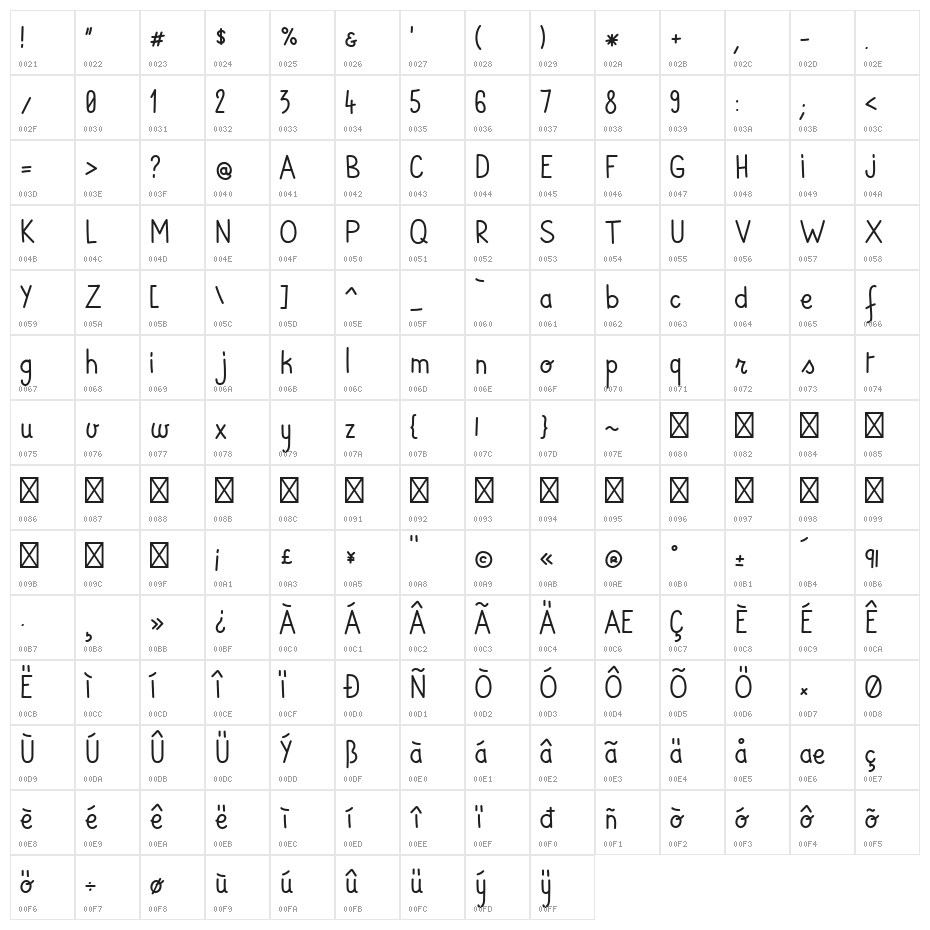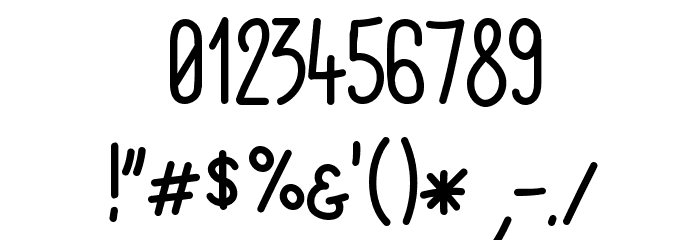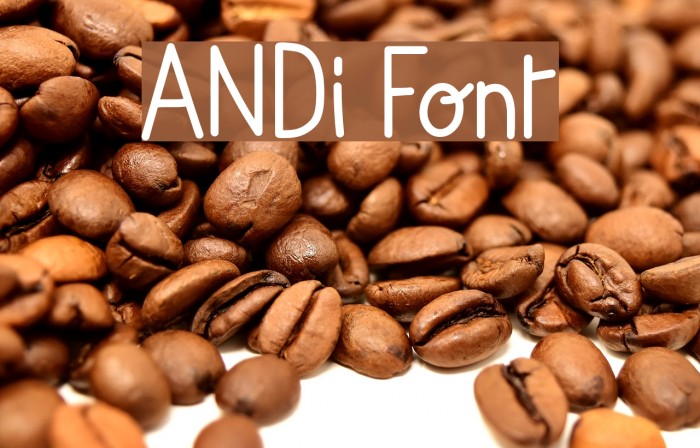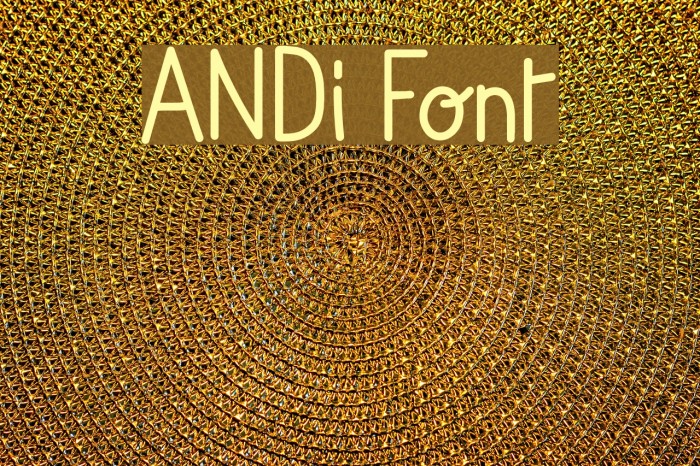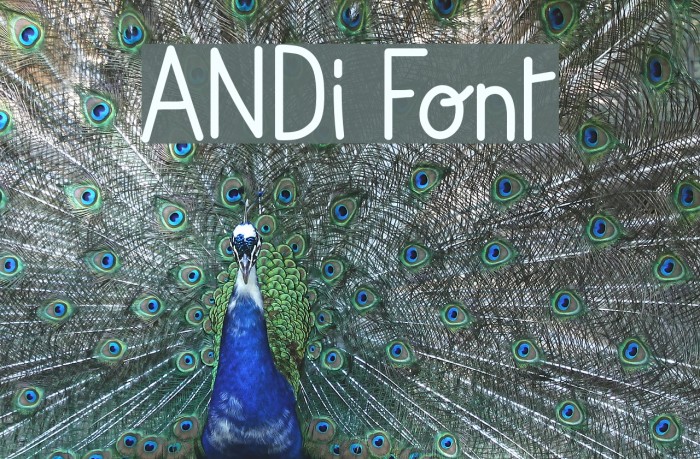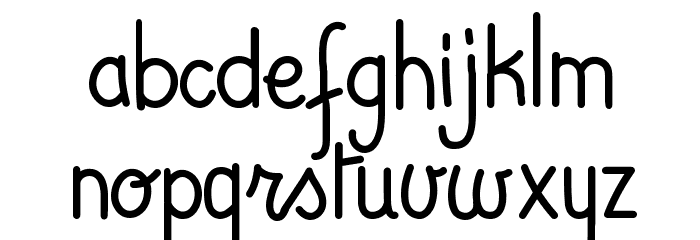
ANDi Font
ANDi Description
This font features a playful and casual handwritten style, characterized by its rounded and slightly irregular letterforms. The uppercase and lowercase letters maintain a consistent flow, with a slight tilt that adds to its informal charm. The numerals and special characters follow the same aesthetic, ensuring a cohesive look across all text elements. The strokes are uniform in thickness, providing a clean and approachable appearance. This font is well-suited for projects that require a friendly and inviting tone, such as children's books, casual invitations, or personal branding materials.